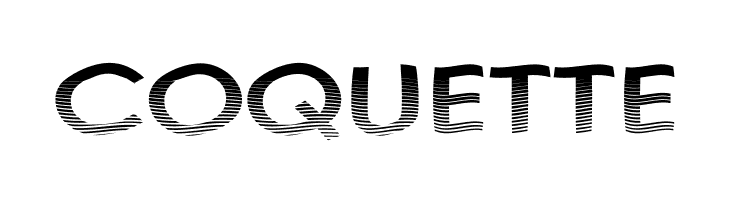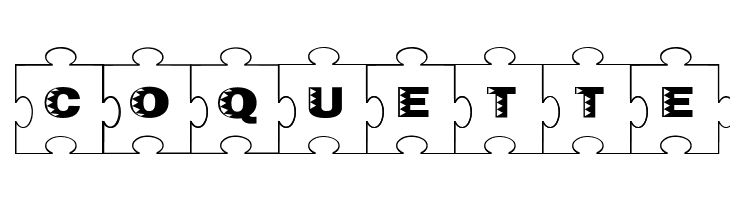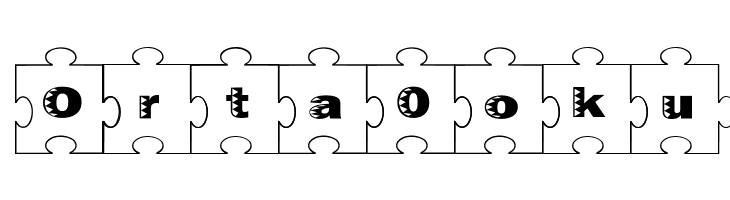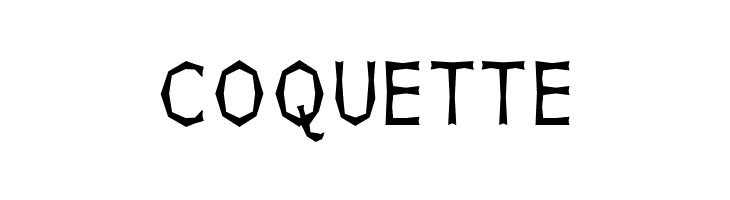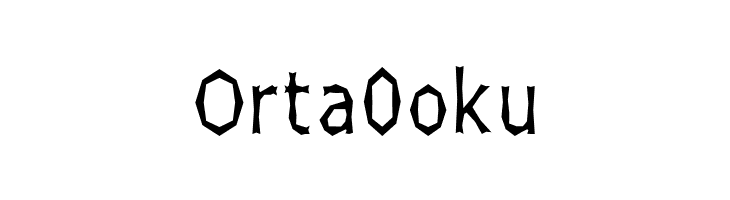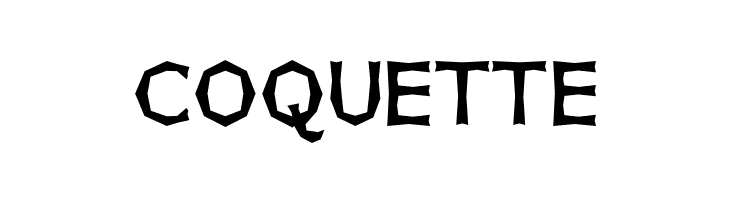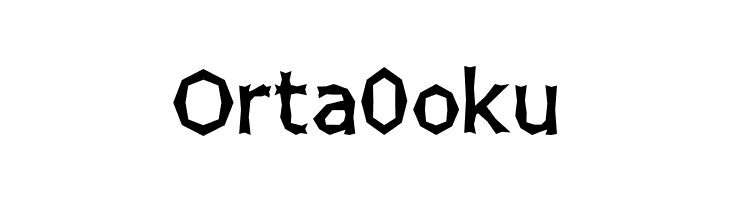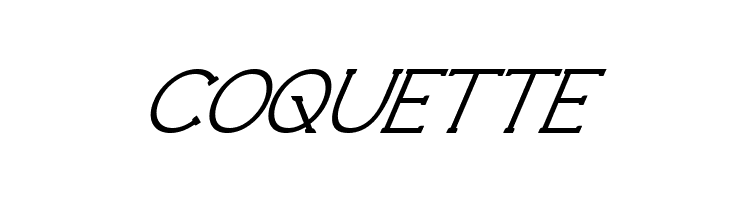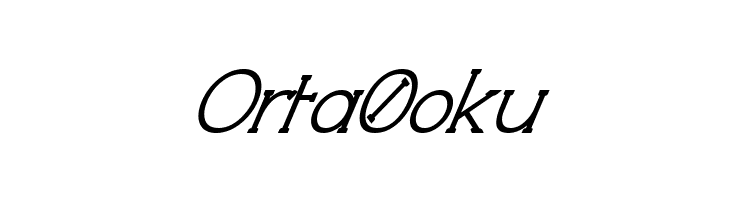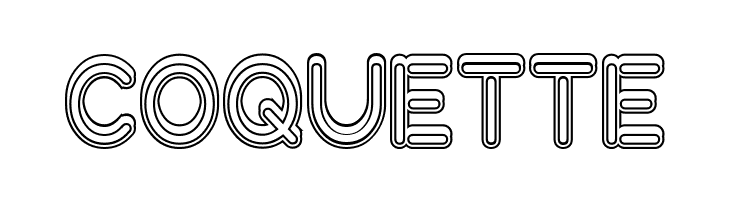
A dynamic, striped font with bold strokes and a modern, energetic style.
A playful font with characters enclosed in jigsaw puzzle pieces, offering a bold and unique style.
A rugged, chiseled font with an angular, handcrafted appearance.
A rugged, chiseled font with sharp, uneven edges for a bold impact.
A dynamic, italicized font with a sleek, modern style.
A playful, bold outline font with a three-dimensional appearance.
A bold, decorative font with high contrast and intricate details.
A bold, decorative font with a striped pattern and three-dimensional outline.
A bold, distressed font with jagged edges and a torn appearance.
A bold, high-contrast serif font with sharp serifs and vintage flair.